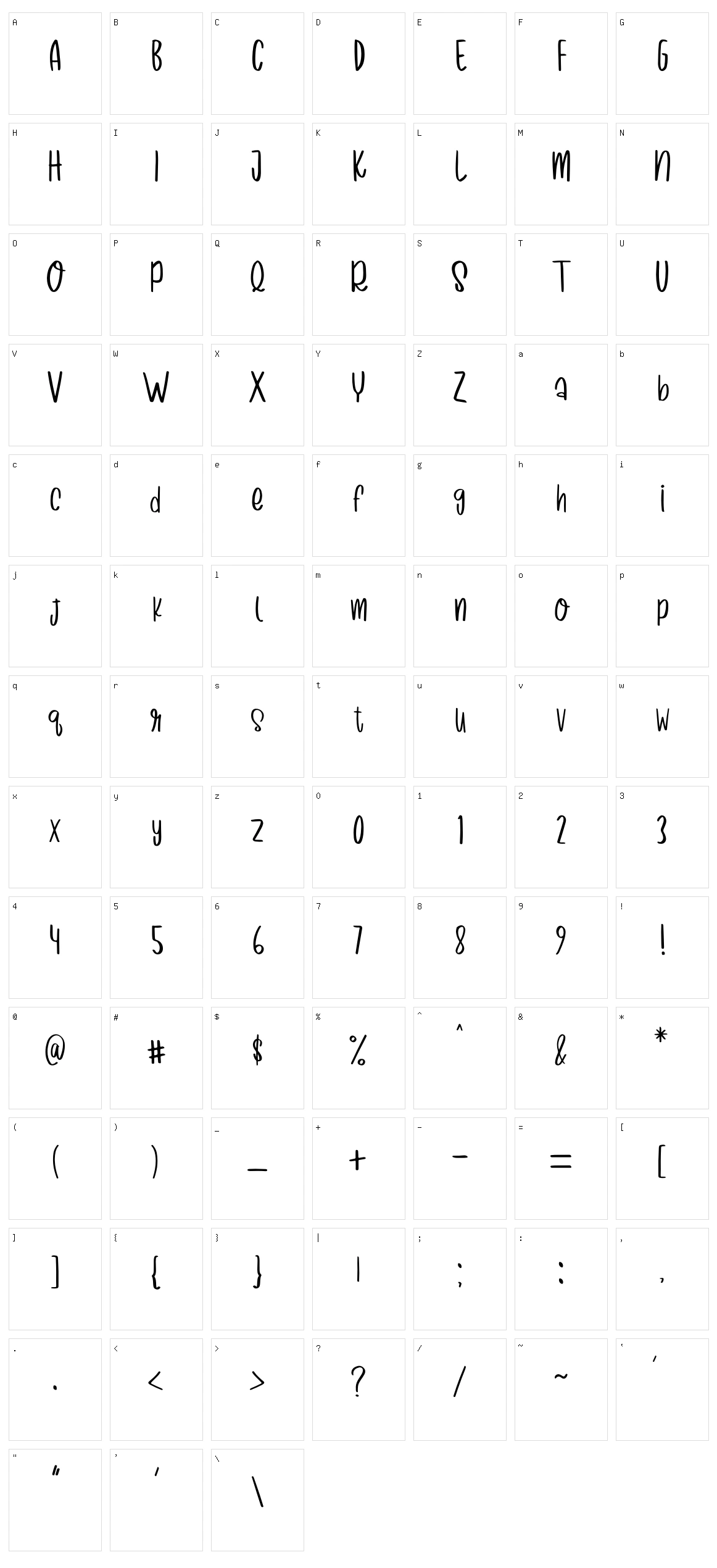
The free font Black Romance is carefully designed by Booga Letter, showcasing a thoughtful balance of creativity and usability and falls under the Script font style. When you download the ZIP file, it contains only 29.18 KB of font files, making it lightweight and quick to download. Please review the license details below to understand permitted usage and distribution rights. If license information is not available, we recommend using this font for personal projects only or contacting the author directly for commercial usage permissions.